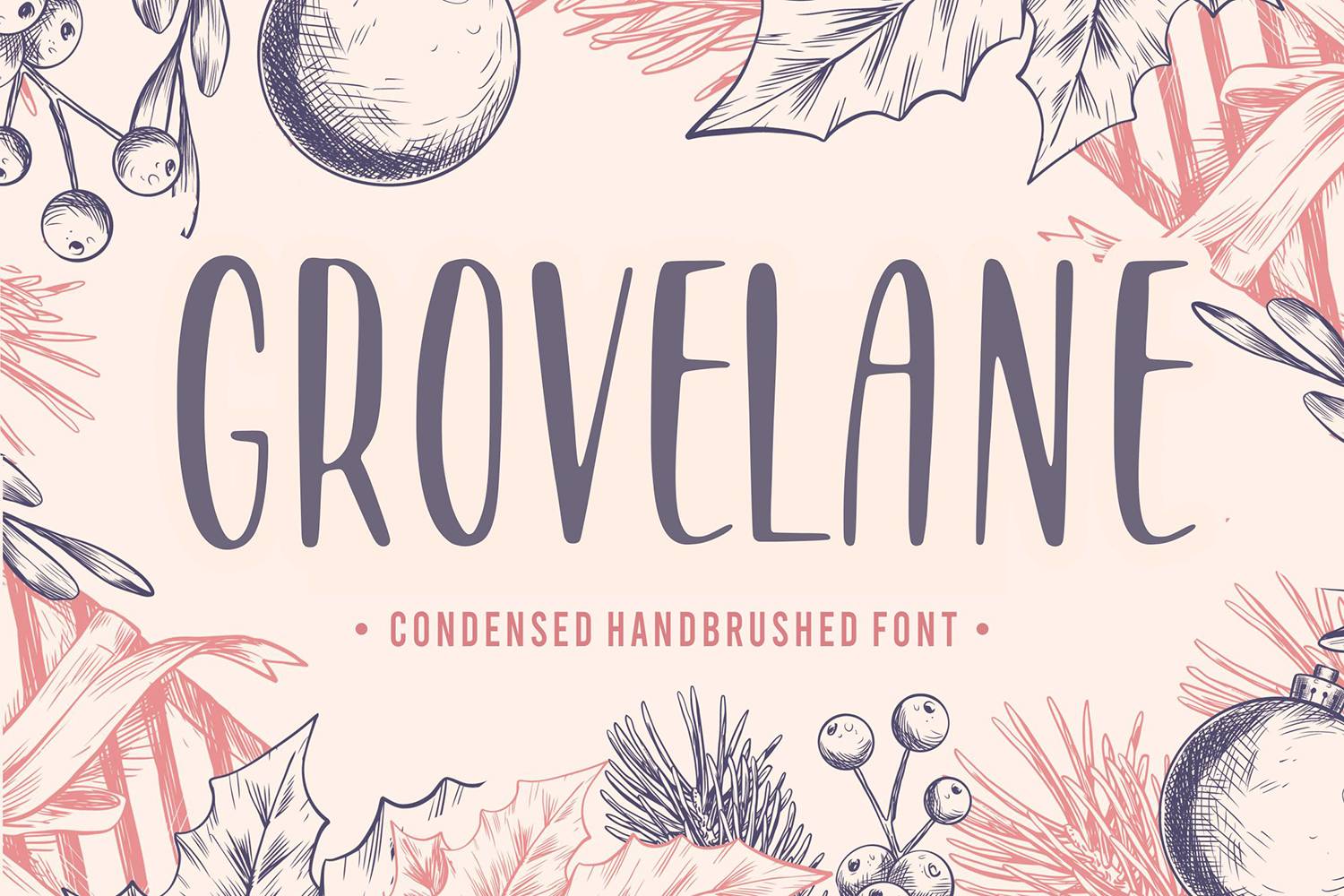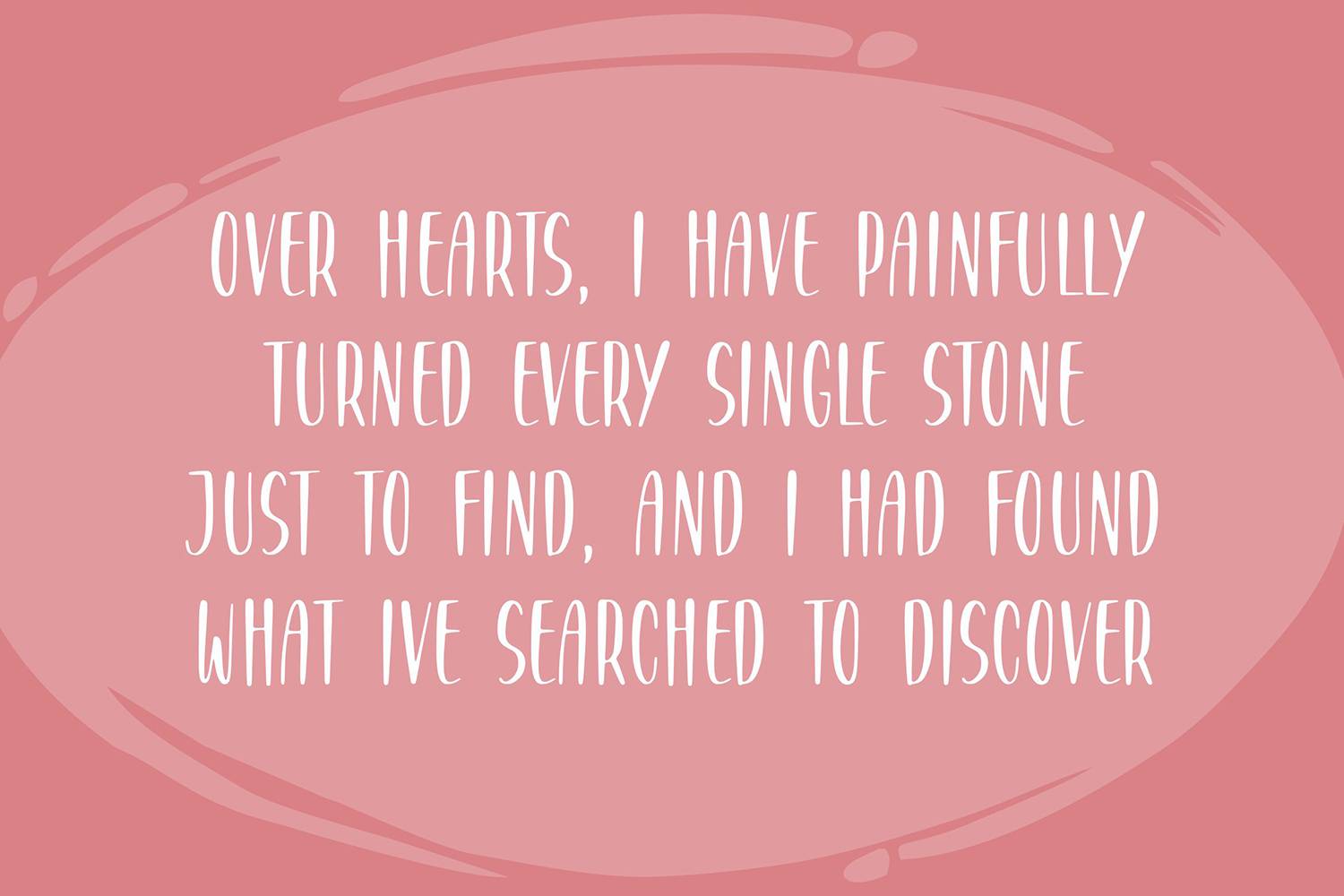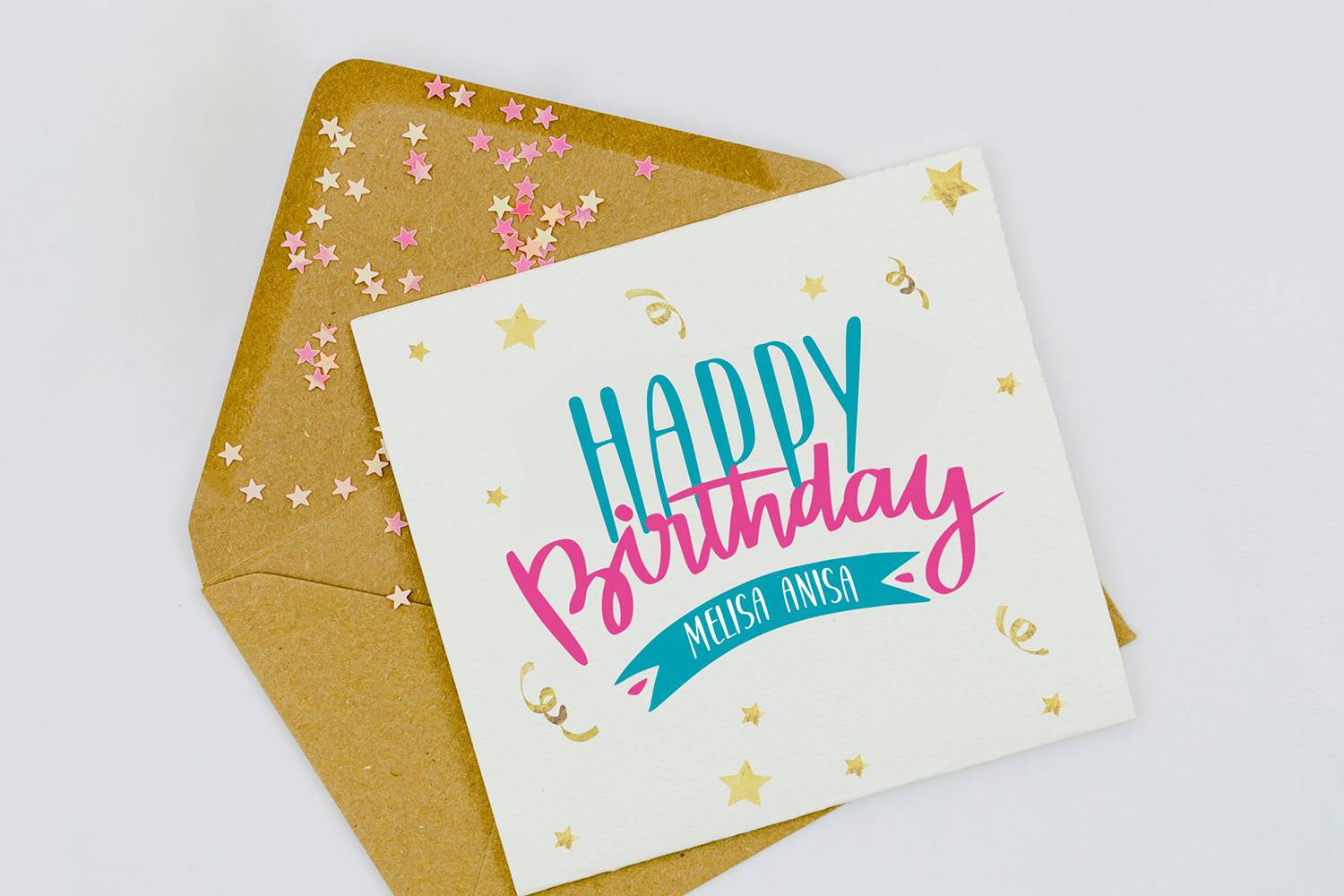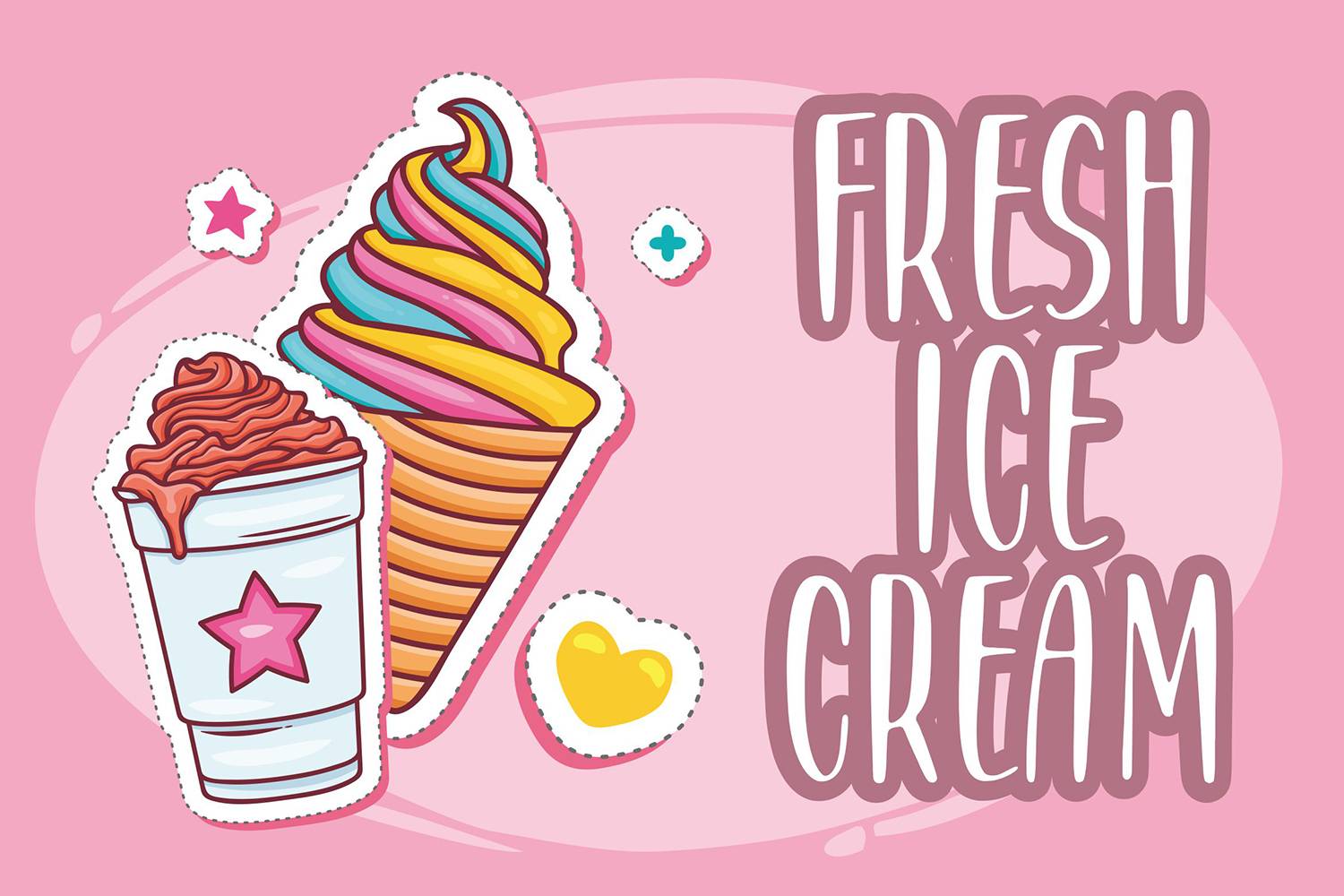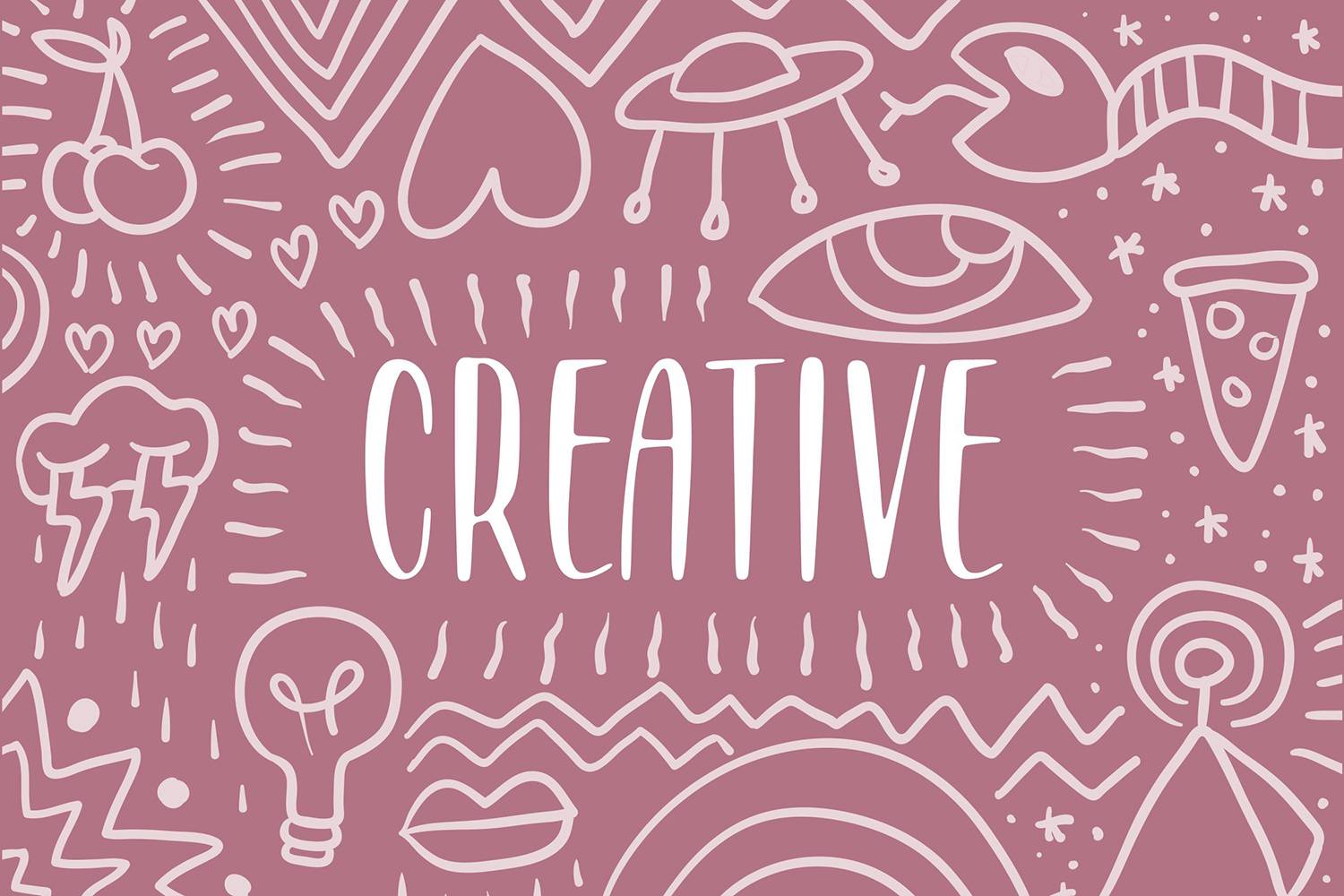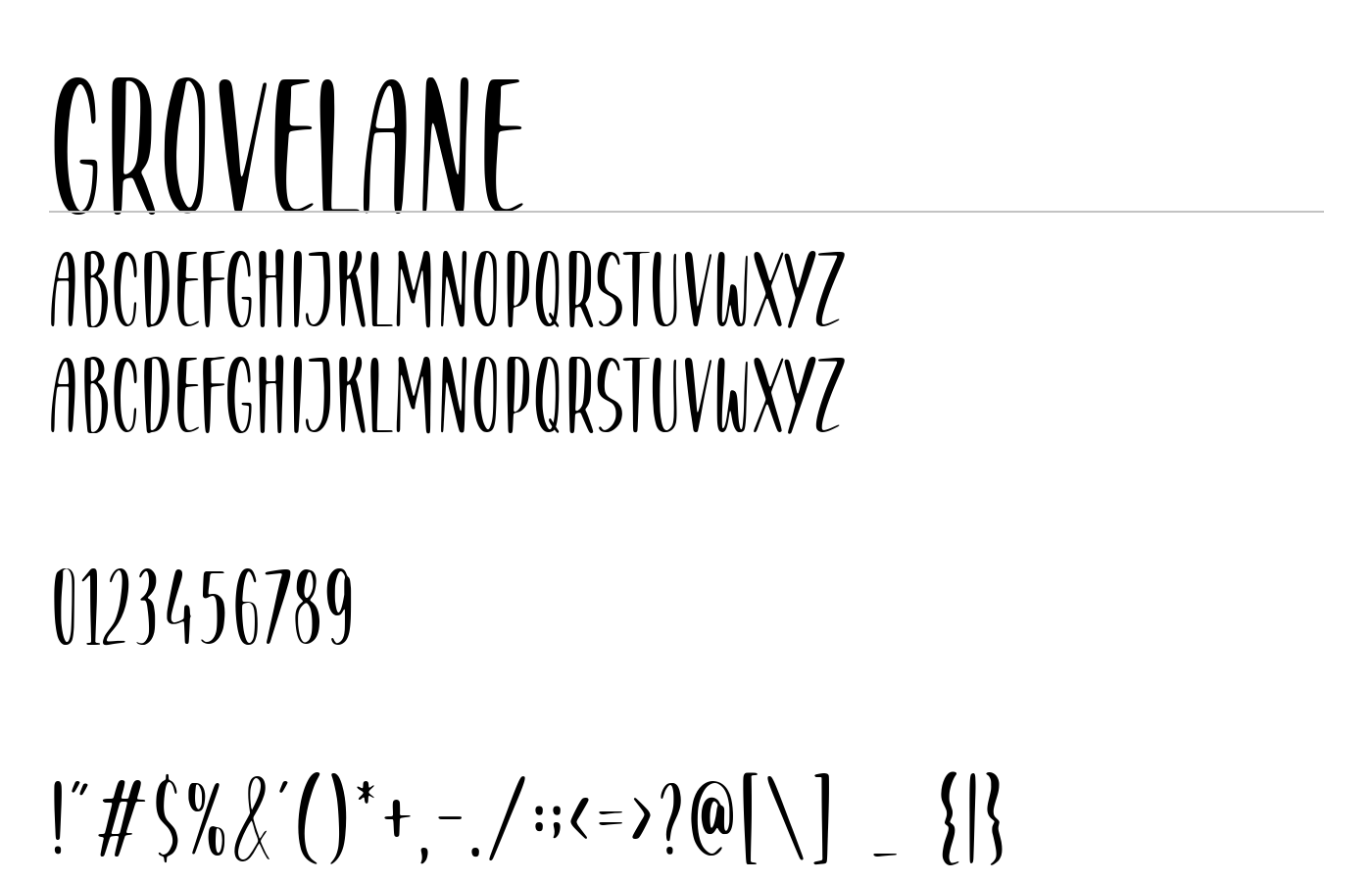
Grovelane is a tall, narrow sans serif font with a playful, hand-drawn vibe. Its slender letterforms and slight irregularities give it a casual, friendly feel, making it ideal for creative designs that want to convey warmth and approachability. This font works great for headlines, logos, and branding projects where a unique and charming personality is desired.
Grovelane Font
About Grovelane Font